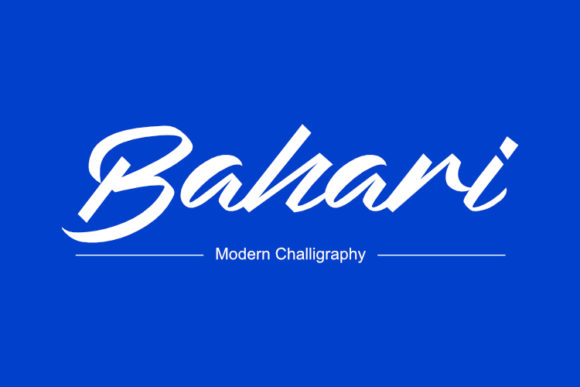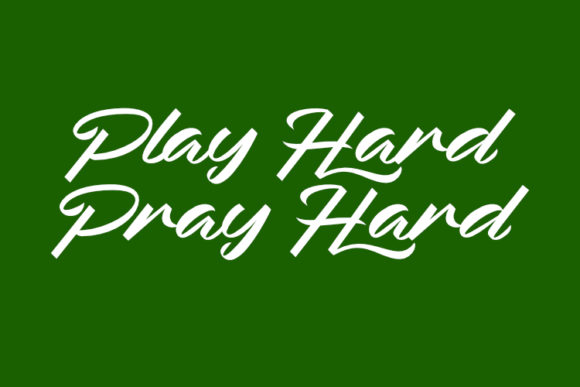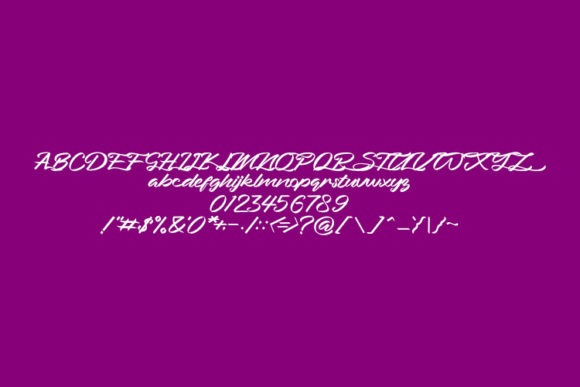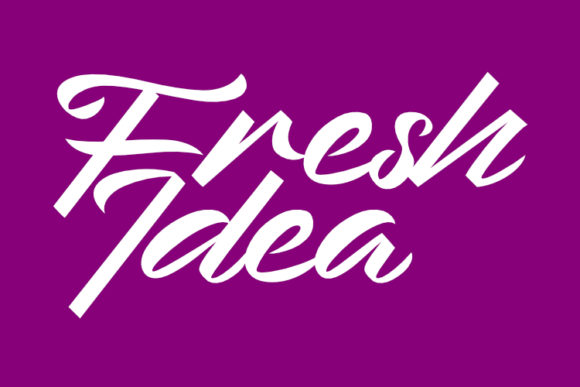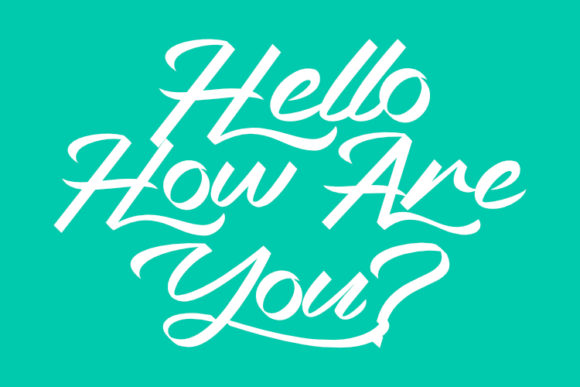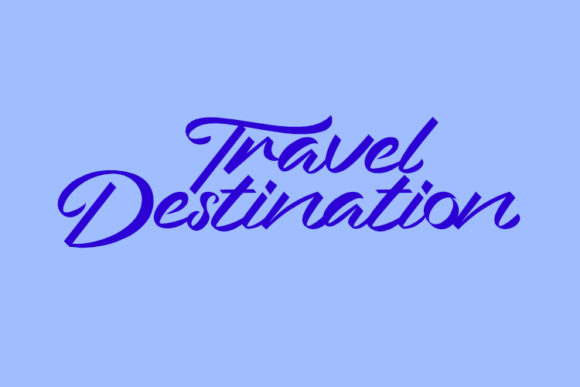
Bahari Font
About Bahari Font
The Bahari is a modern & fresh calligraphy font. It includes stylish hand-lettering with a natural and classy look.
It’s perfect for many different project such as logos & branding, invitation, stationery, wedding designs, social media designs, and much more!